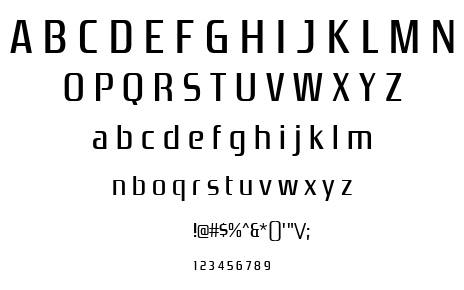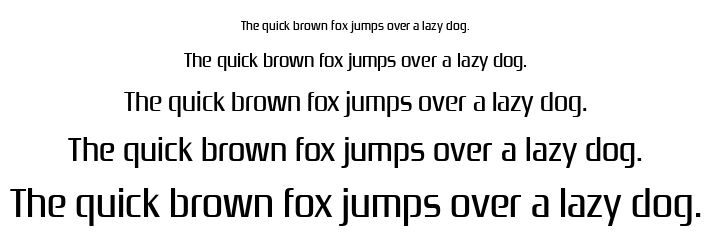
Zrnic is a squarish, modular display font with a soft, streamlined aesthetic. Don’t forget to read the files inside the zip for details. Updated in 2012.